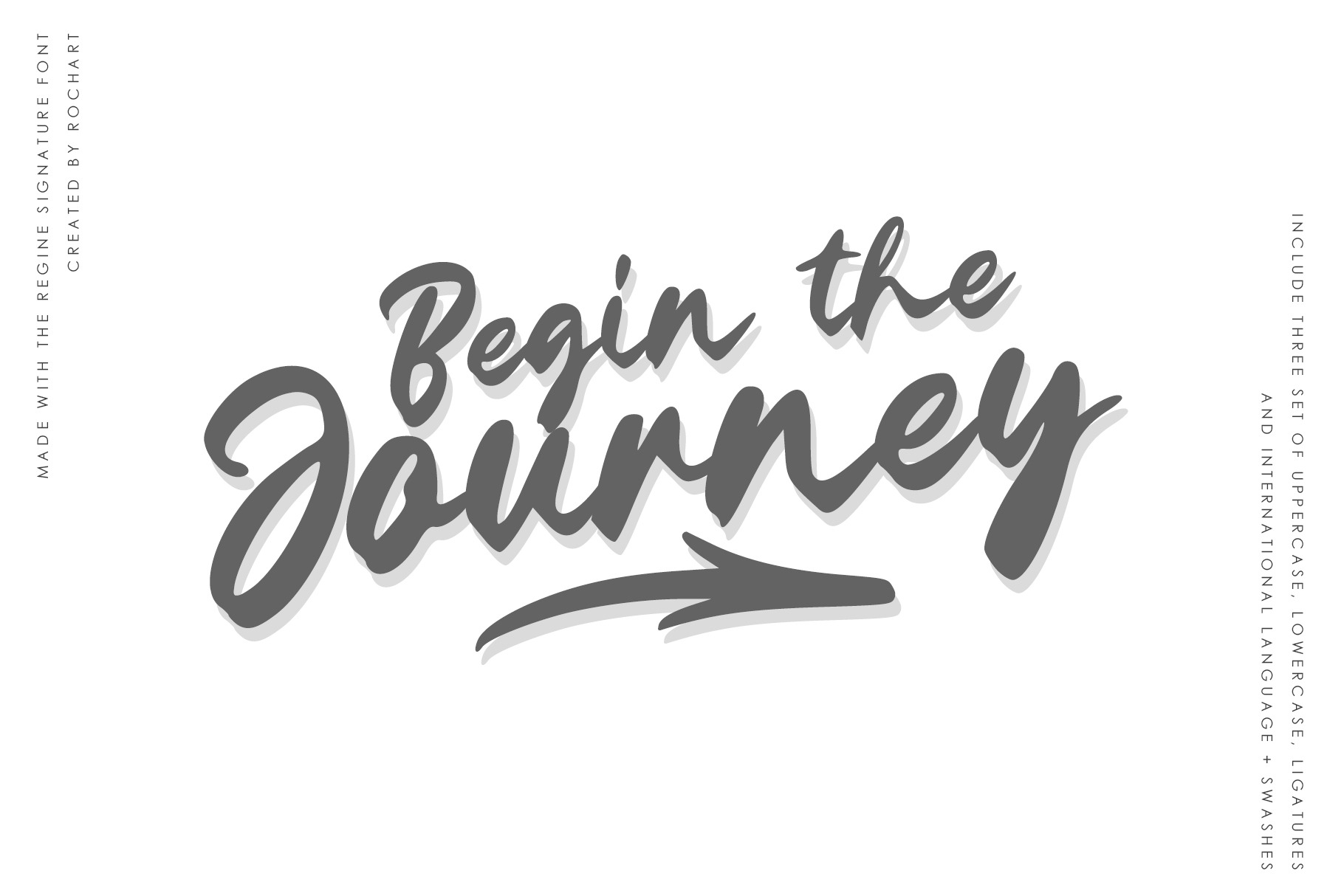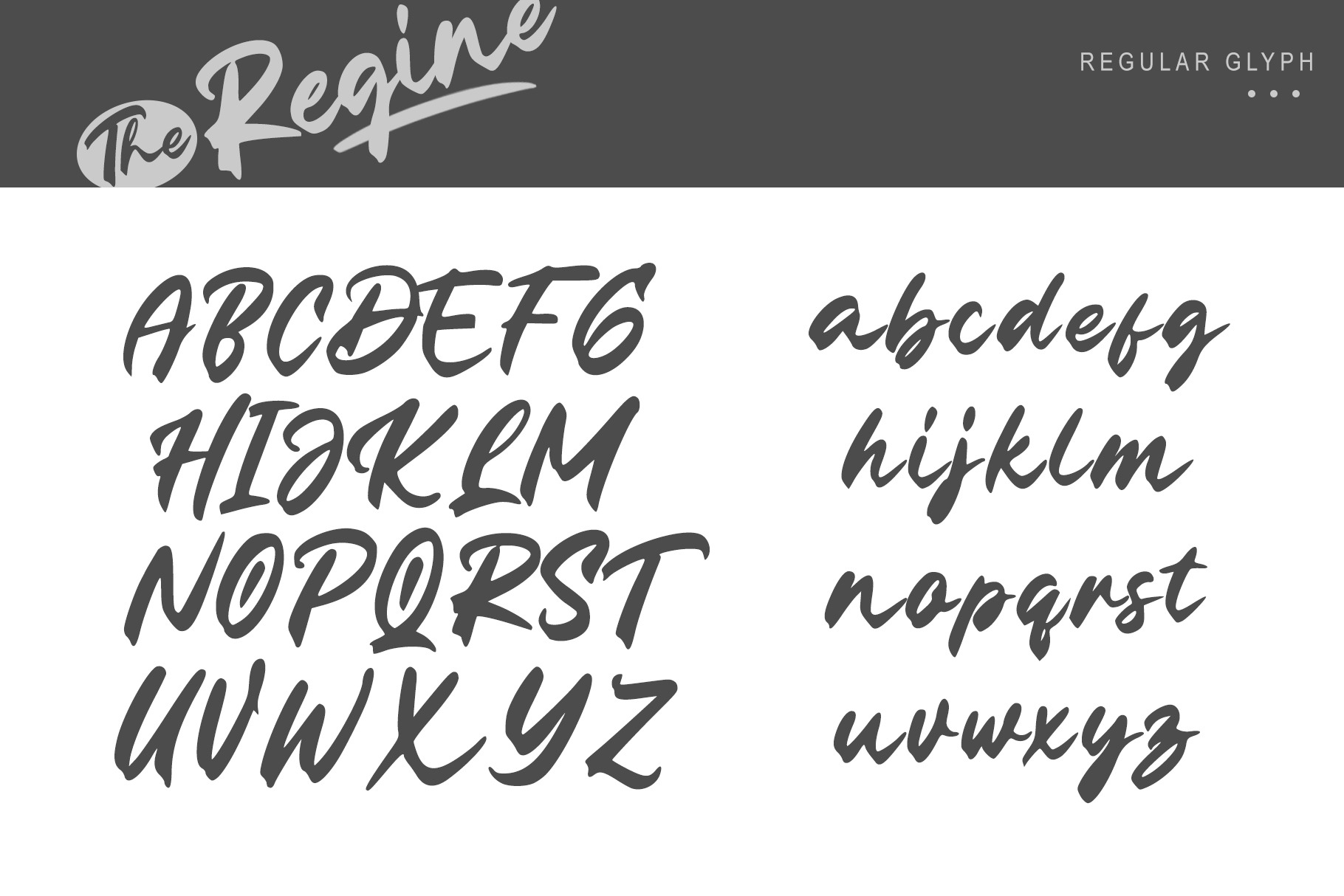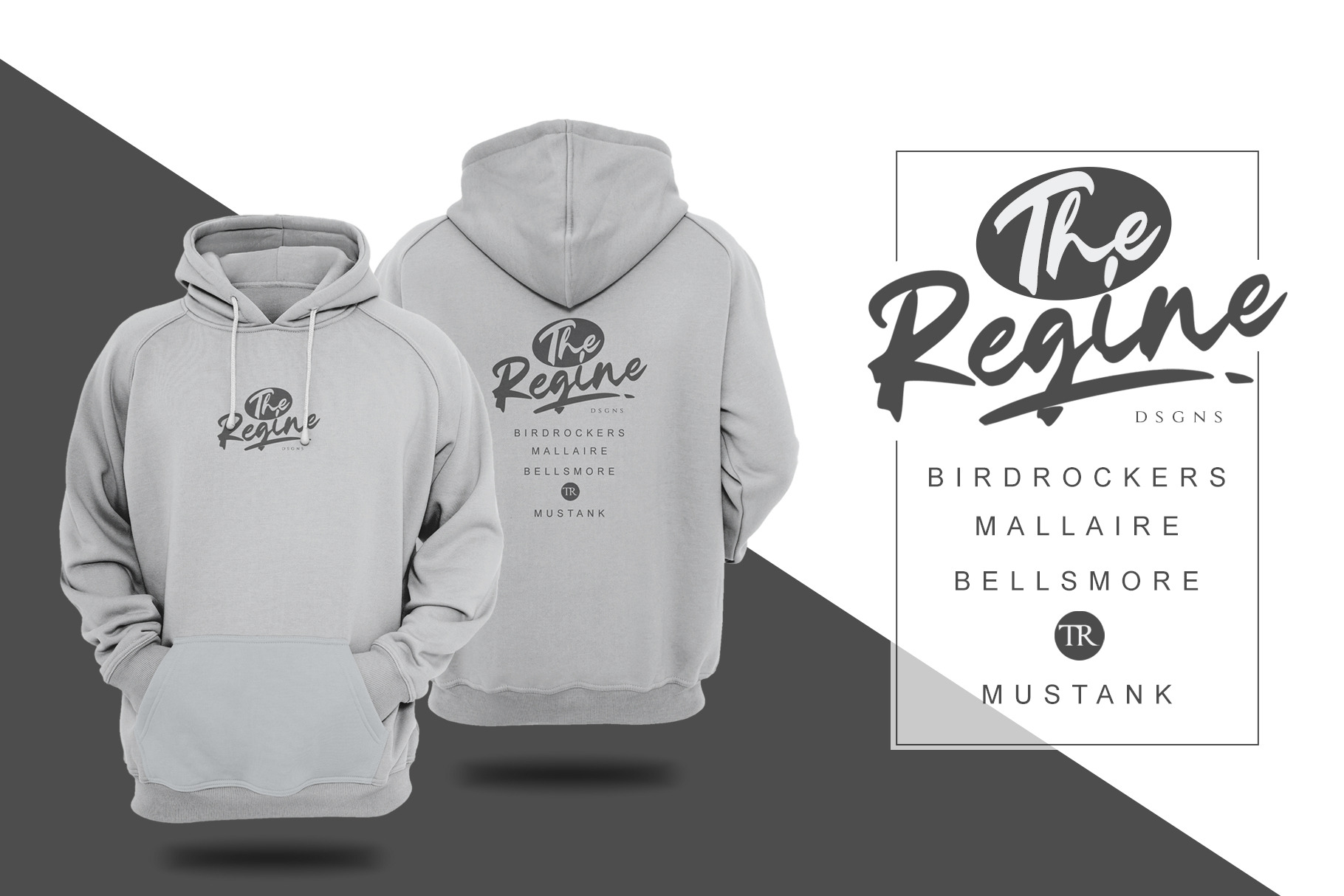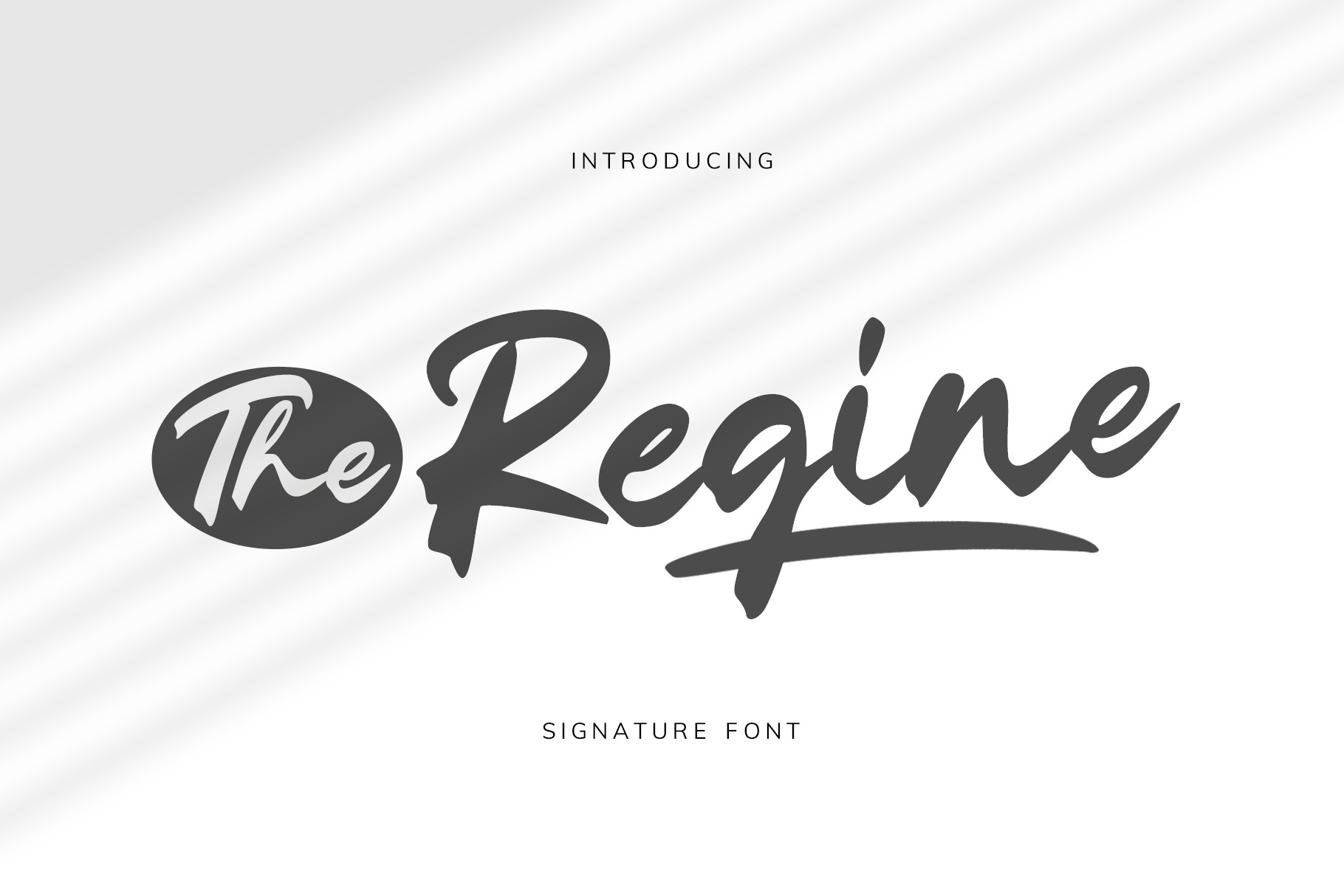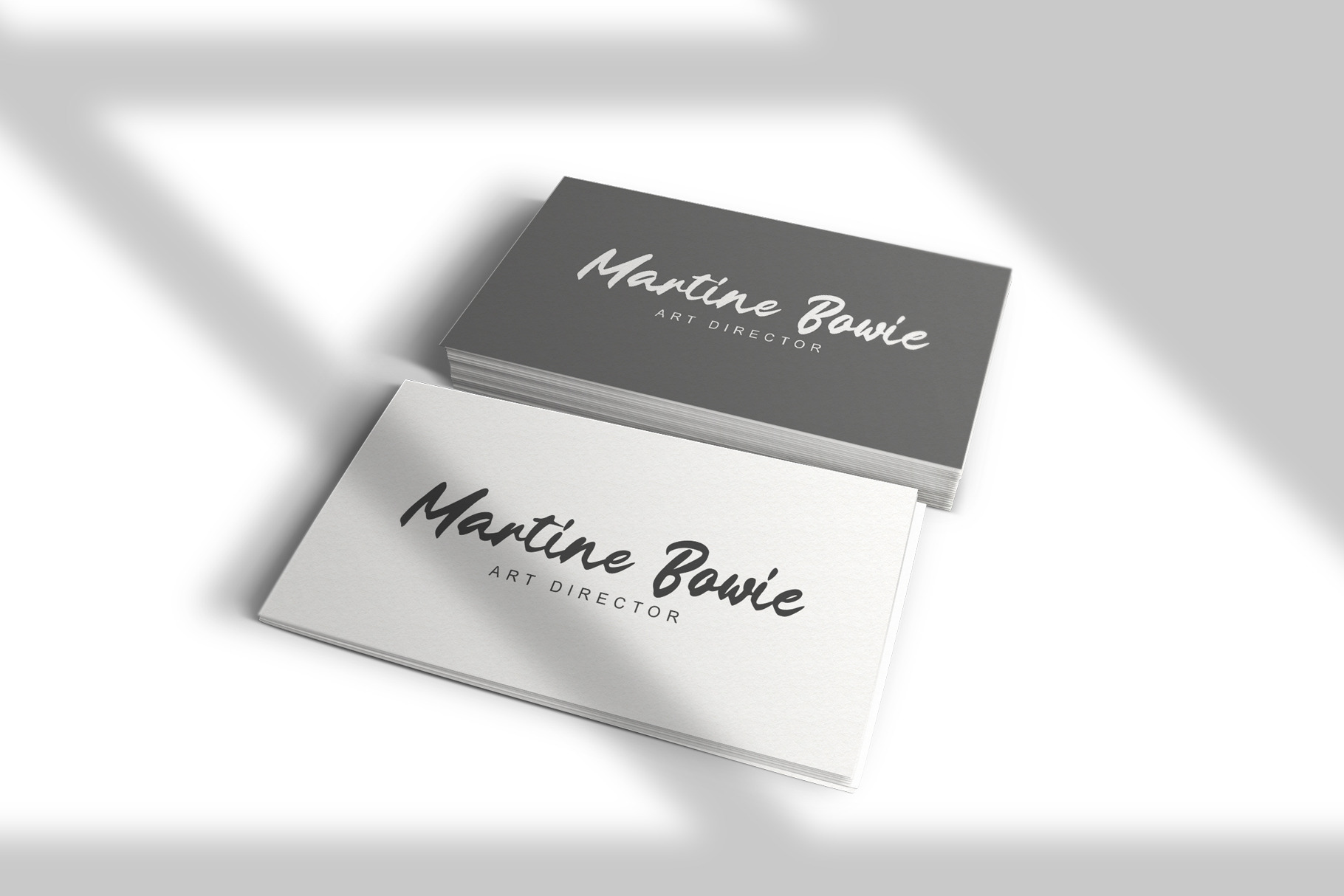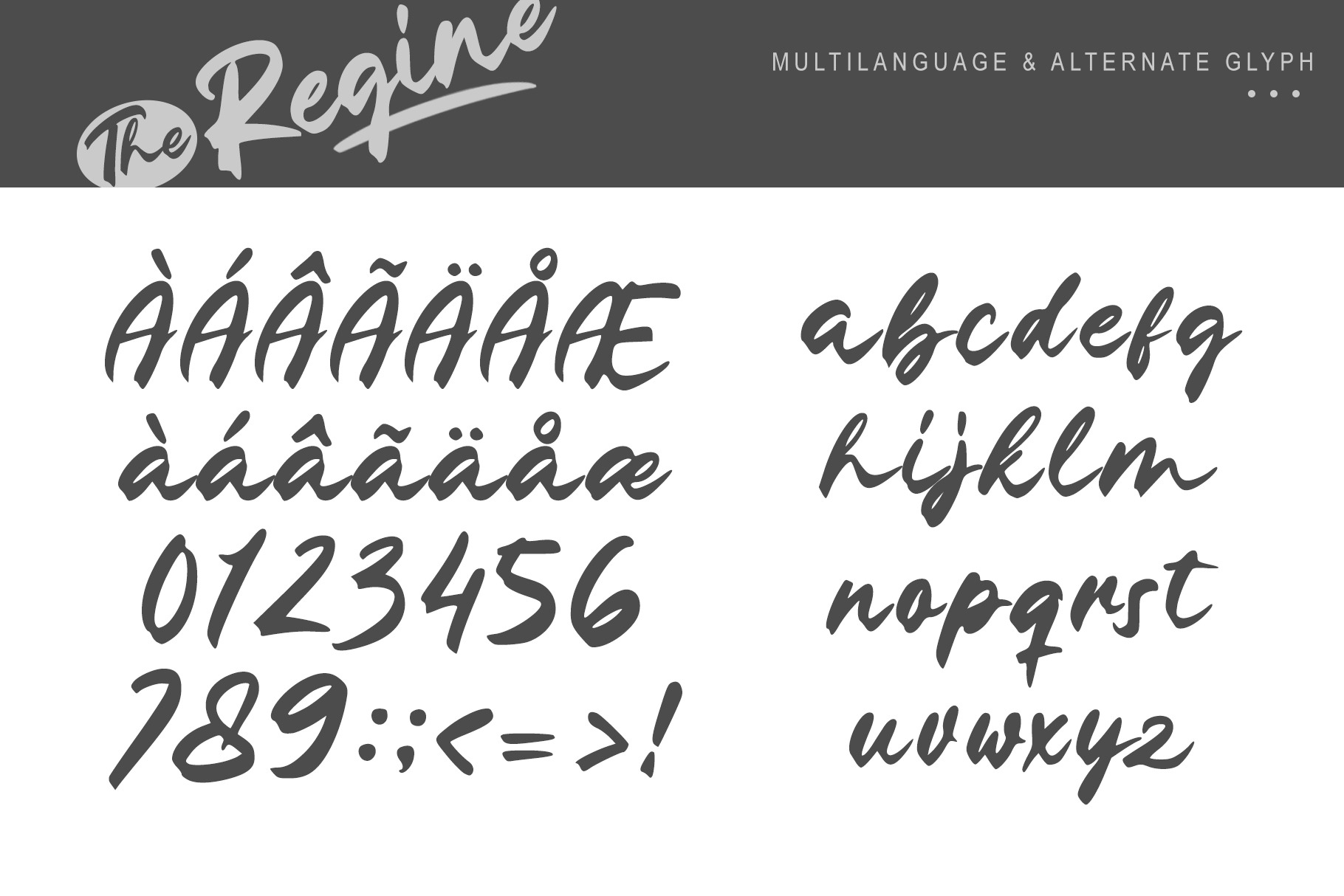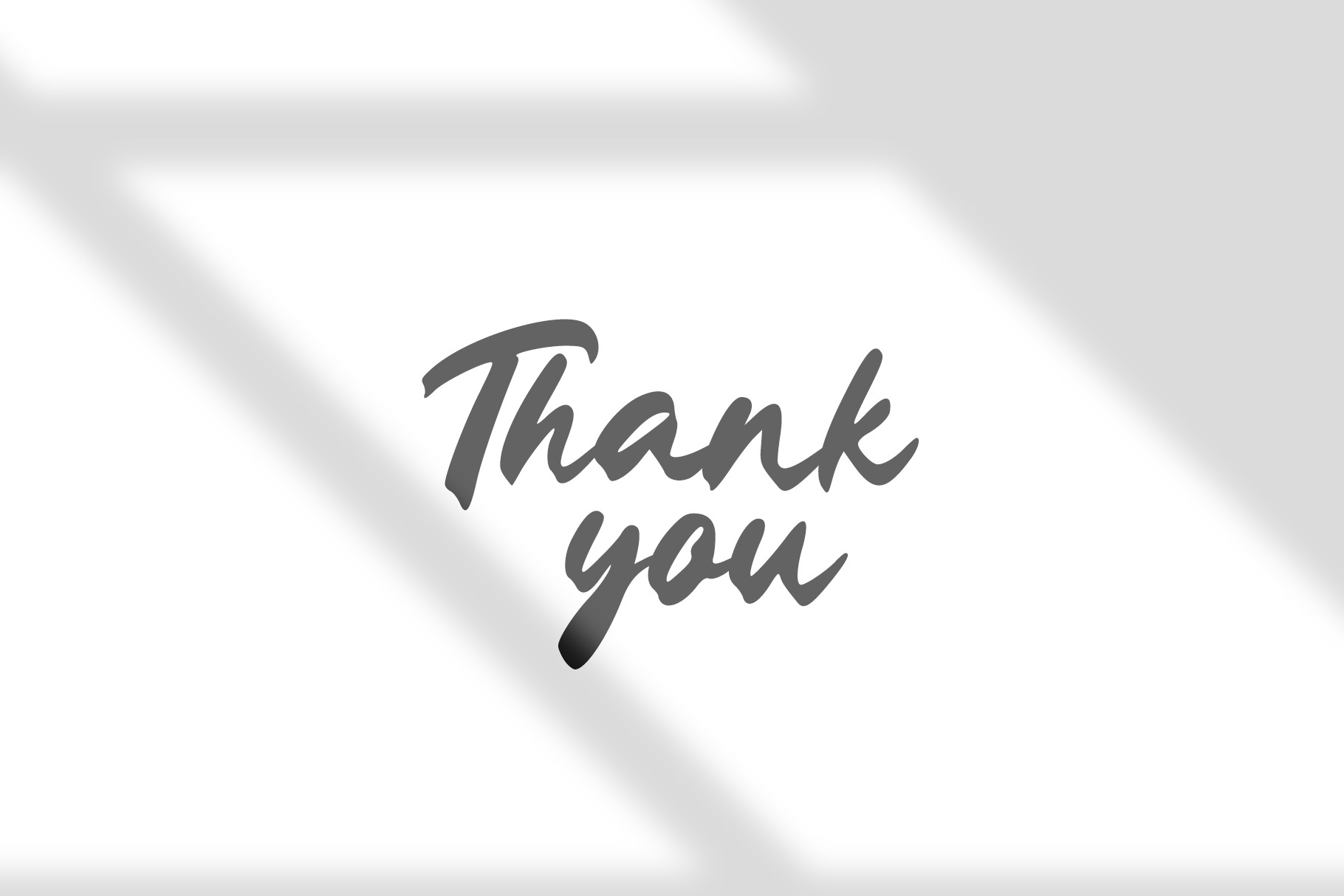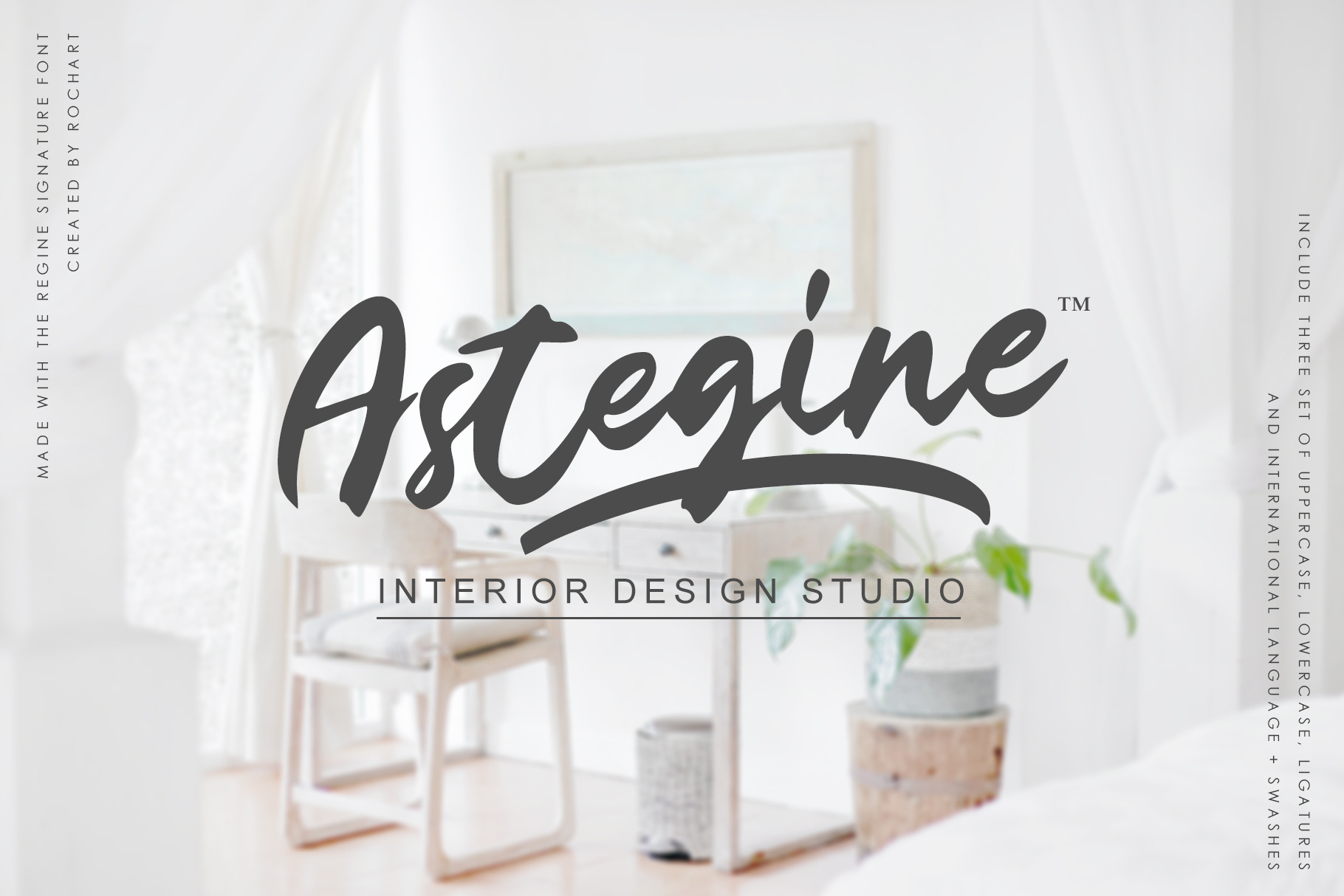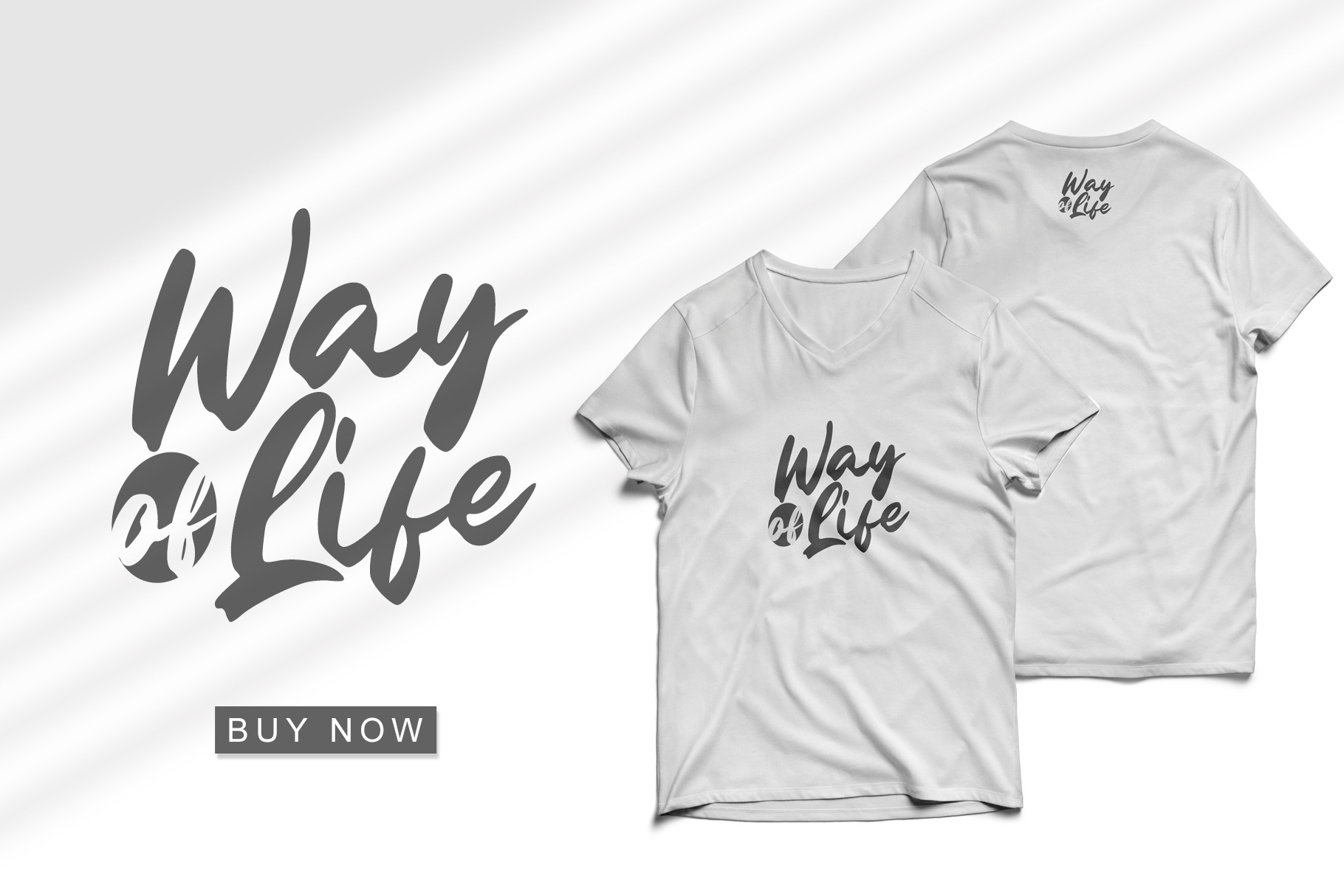
The Regine || Signature Font by Rochart | Creative Market
Give your designs an authentic handcrafted feel. The Regine is perfectly suited to signature, stationery, logo, typography quotes, magazine or book cover, website header, clothing, branding, packaging design and more. A handwritten script font containing upper and lowercase characters, numerals, a large range of punctuation, International language, ligatures, stylistic alternate and Swashes. I hope you make something cool with it! Enjoy, Rochart | The Regine || Signature Font | Rochart